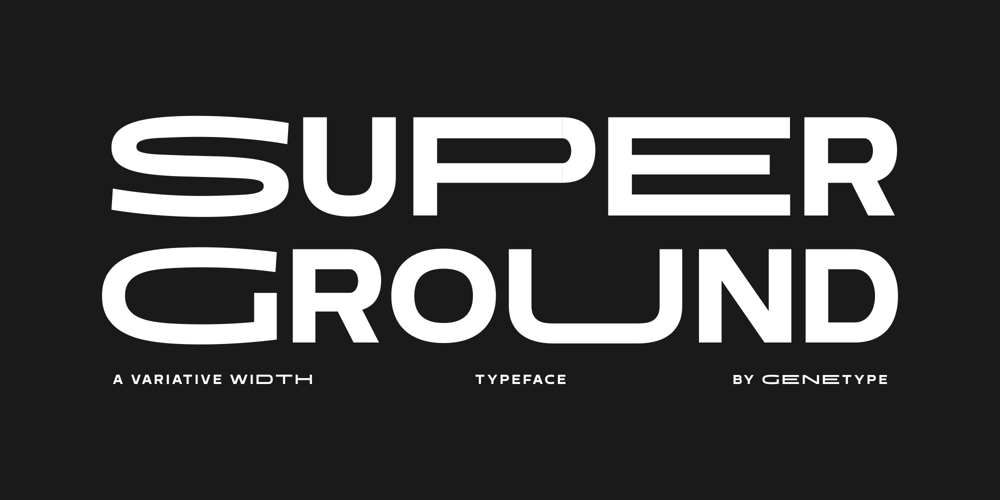
Super Ground
Super Ground font
Super Ground Font Family was designed by Bagus Arya and published by Genetype. Super Ground contains 1 styles and family package options. Introducing Super Ground Typeface : Expand Your Design HorizonsA wide sans serif font designed to amplify your design impact. Its spacious letterforms provide a canvas for bold ideas, from captivating headlines to eye-catching logos. Embrace the power of width and redefine your designs